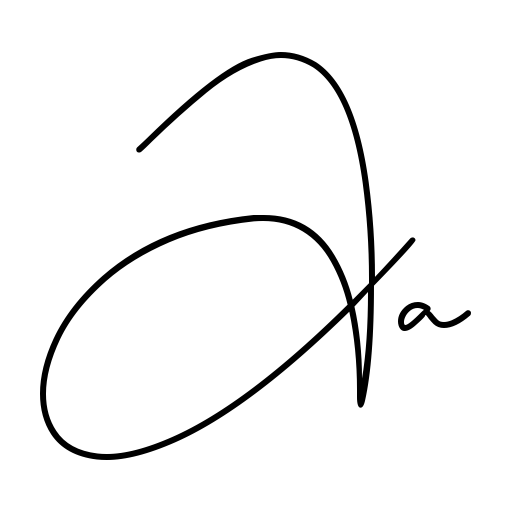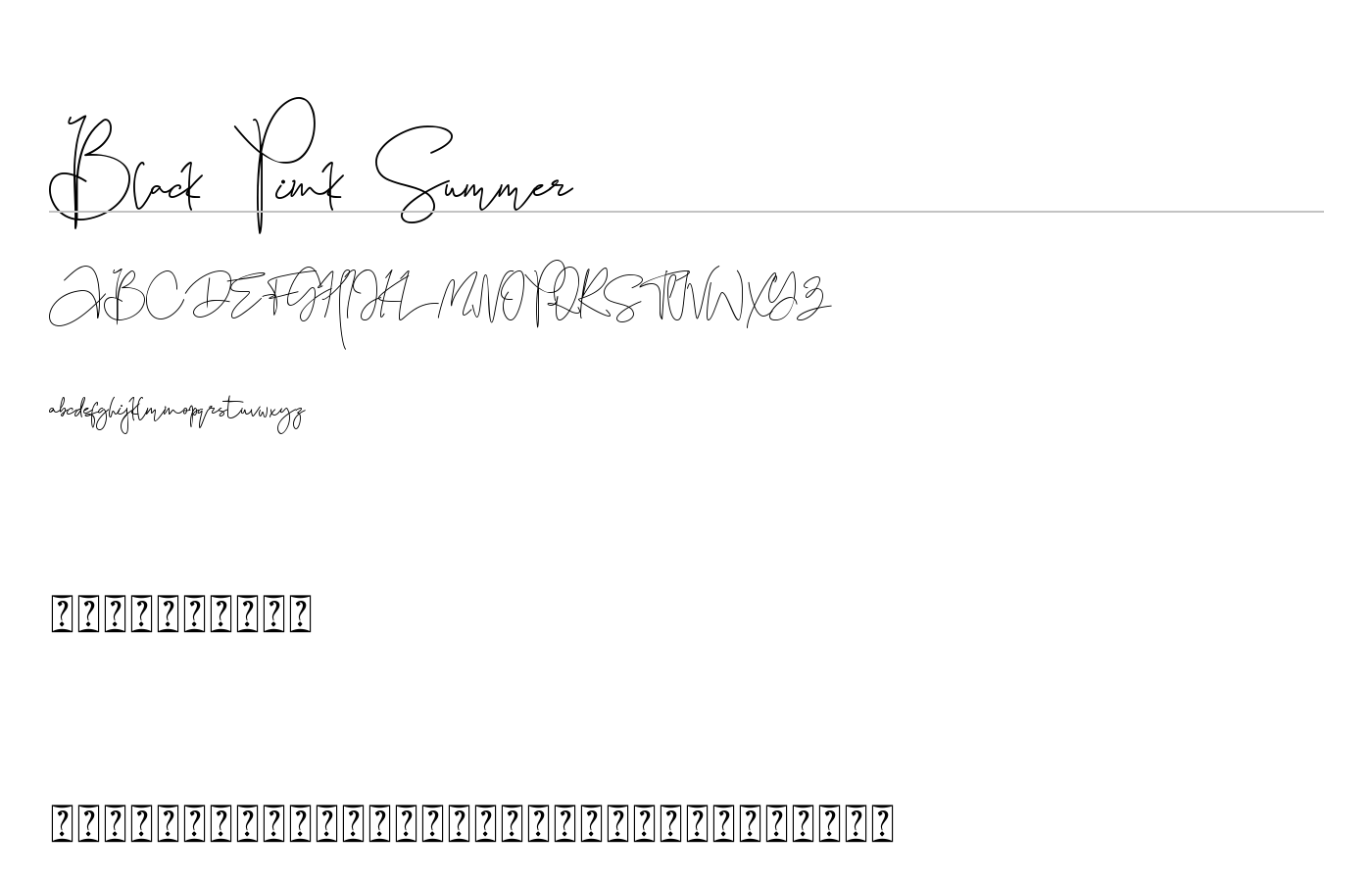
Black Pink Summer is a delicate, thin script font with a handwritten feel, characterized by tall, elongated letterforms and a flowing, airy style. Its fine strokes and elegant loops give it a graceful, artistic vibe, making it perfect for creative branding, invitations, or anything that needs a personal, stylish touch. This font shines in designs requiring a soft, feminine, and modern handwritten look.
Black Pink Summer Font
About Black Pink Summer Font
| Font family | Black Pink Summer Font |
| Designer | Letterara 2019 |